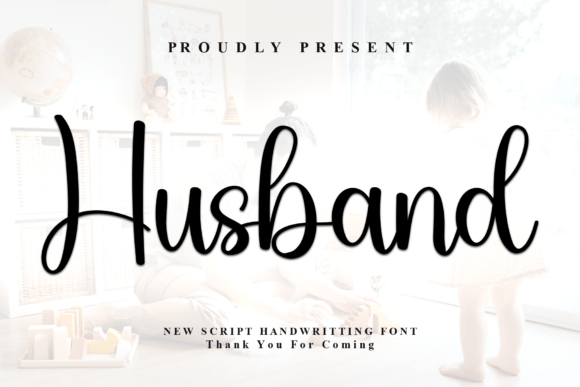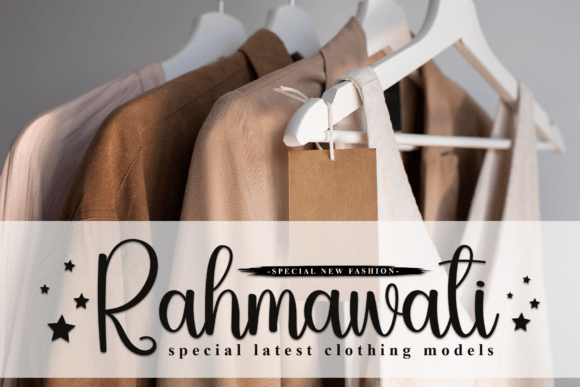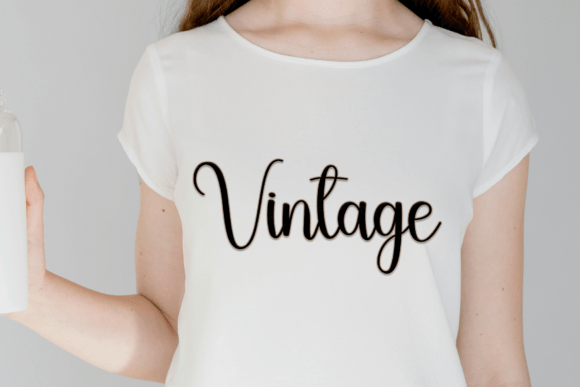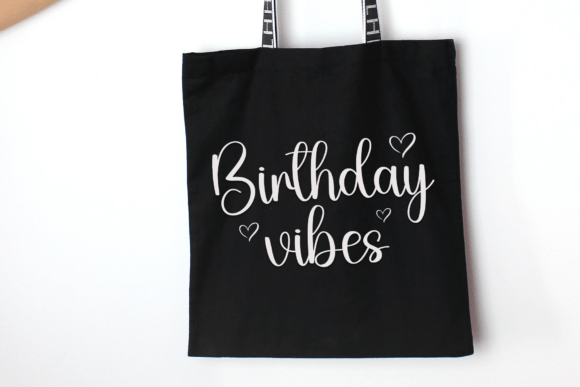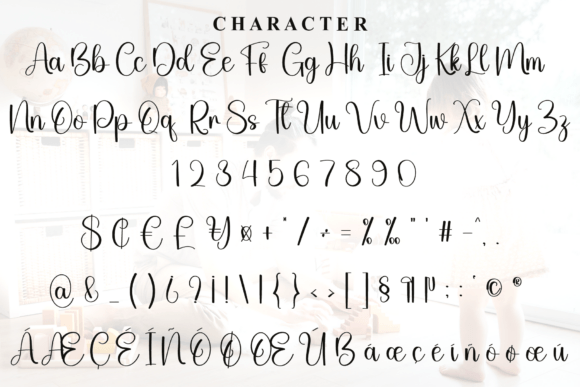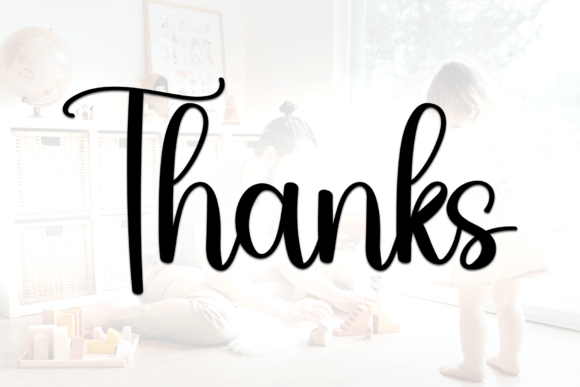
The Perfect Script Font for Making a Statement
Remember that moment when you finally found the perfect font to elevate your design project? For many designers, it’s a moment of pure joy and relief. Whether you’re creating a sports brochure, a fun advertisement, or a wedding invitation, the right font can make all the difference.
Enter Husband Font, a playful script font that’s sure to grab attention. This bold, energetic font is reminiscent of being drawn with a marker, giving it a fun, casual vibe. With Husband Font, you can add a sporty twist to your designs, making them stand out from the crowd.
As a designer, you know how valuable a versatile font like Husband Font can be. It’s perfect for a wide range of projects, from action-packed sports designs to fun, casual invitations. With its unique look and feel, Husband Font is sure to become a go-to font in your design arsenal.
Husband Font Key Features
- Unique Characteristics: Husband Font is known for its distinctive, handwritten feel and is often used for titles, headings, and other display typography.
- Font Style: The font is available in regular and bold weights, providing flexibility for designers to create visually appealing typography.
- Legibility: Despite its unique, handwritten style, Husband Font is highly legible, even at small sizes, making it suitable for a variety of applications.
Honest Designer Review: Husband Font
Husband Font is a unique and quirky font that’s perfect for adding some humor and personality to your designs. ✨ I love how it’s a bit unconventional and can add a touch of whimsy to your projects. The font’s playful nature makes it a great choice for branding, social media, and other casual designs.
One of the things that works well with Husband Font is its legibility. ✨ Even at smaller sizes, the font remains clear and easy to read, making it a great choice for body text or headlines. Additionally, the font’s consistent stroke width and smooth curves make it a pleasure to work with.
- ⚠️ Husband Font may not be the best choice for formal or professional designs, as its playful nature may come across as unprofessional.
- ⚠️ The font’s quirkiness may not appeal to everyone, and some users may find it too busy or distracting.
Overall, I think Husband Font is a great addition to any designer’s toolkit. While it may have some limitations, its unique personality and legibility make it a great choice for the right projects. Just be sure to use it in context and with a clear understanding of your design goals.
Here are some tips for getting the most out of Husband Font:
- Use it for humorous or playful designs.
- Pair it with bold, colorful graphics for maximum impact.
Alternatives to Husband Font
Playfair Display is a high-end, elegant serif font perfect for luxury brands, high-end fashion, and upscale products. It features intricate details, luxurious feel, and sophistication, making it a great alternative to Husband Font for designers looking to convey exclusivity and refinement.
Comparison: While both fonts are elegant, Playfair Display has a more refined and luxurious feel, making it better suited for high-end brands, whereas Husband Font is more versatile and suitable for a wider range of applications.
Didot is a classic, elegant serif font ideal for luxury brands, high-end fashion, and upscale products. It features a refined and sophisticated feel, making it a great alternative to Husband Font for designers looking to convey elegance and refinement.
Comparison: Didot has a more classic and timeless feel compared to Husband Font, making it better suited for brands that value tradition and sophistication.
Merriweather is a classic, elegant serif font perfect for luxury brands, high-end fashion, and upscale products. It features a refined and sophisticated feel, making it a great alternative to Husband Font for designers looking to convey elegance and refinement.